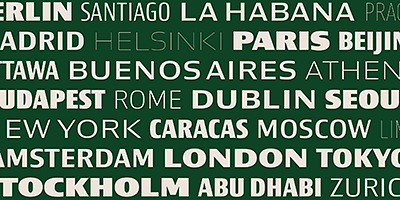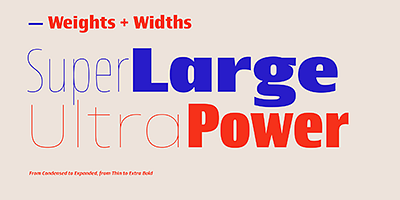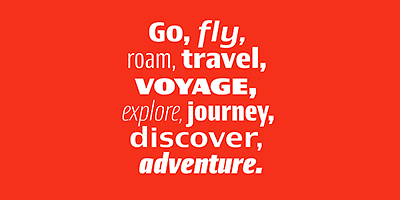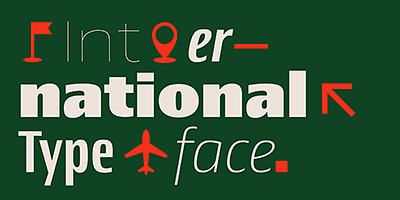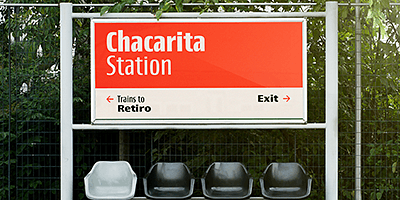
Newbery Sans is a new contrasted sans serif designed by Alejandro Paul and the Sudtipos team. As Paul has lately found inspiration from different German instructional books, Newbery Sans finds its initial inspirations from the lettering work of E. Nerdinger and invokes the spirit of German designs but is imbued with personality all its own.
The idea was to make the letterforms more usable and suitable for everything from corporate branding to editorial. It is an elegant, functional family with contemporary detail that will effortlessly meet the demands of the screen and printed page. From a condensed thin to an expanded black, Newbery Sans provides a usable workhorse system of three widths and seven weights, each with the original design of real italics, a selection of alternate glyphs and a complete set of small caps. Each weight is professionally crafted and includes extended Latin support for Central, East and Western Europe languages. The font’s name nods to its imagined uses in airports and street signage: Jorge Newbery was one of the first Latin American aircraft pilots, Newbery is the street where I live and it is also the name of Buenos Aires’s local airport.